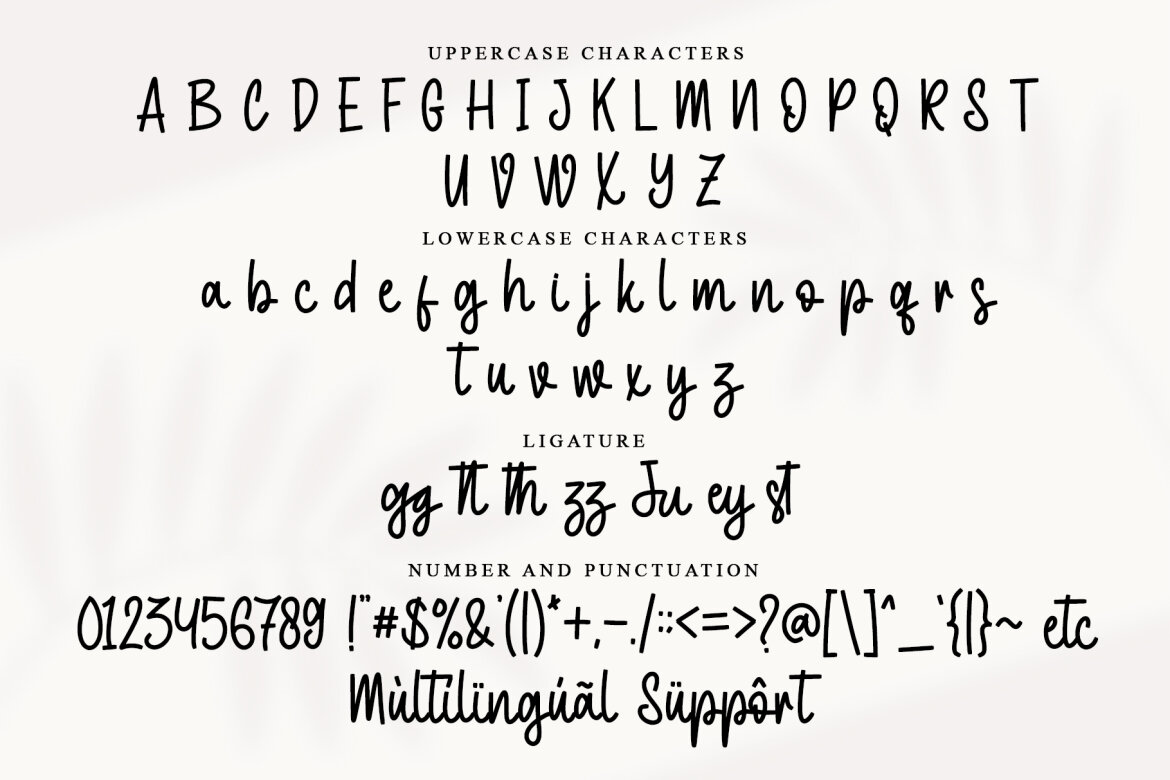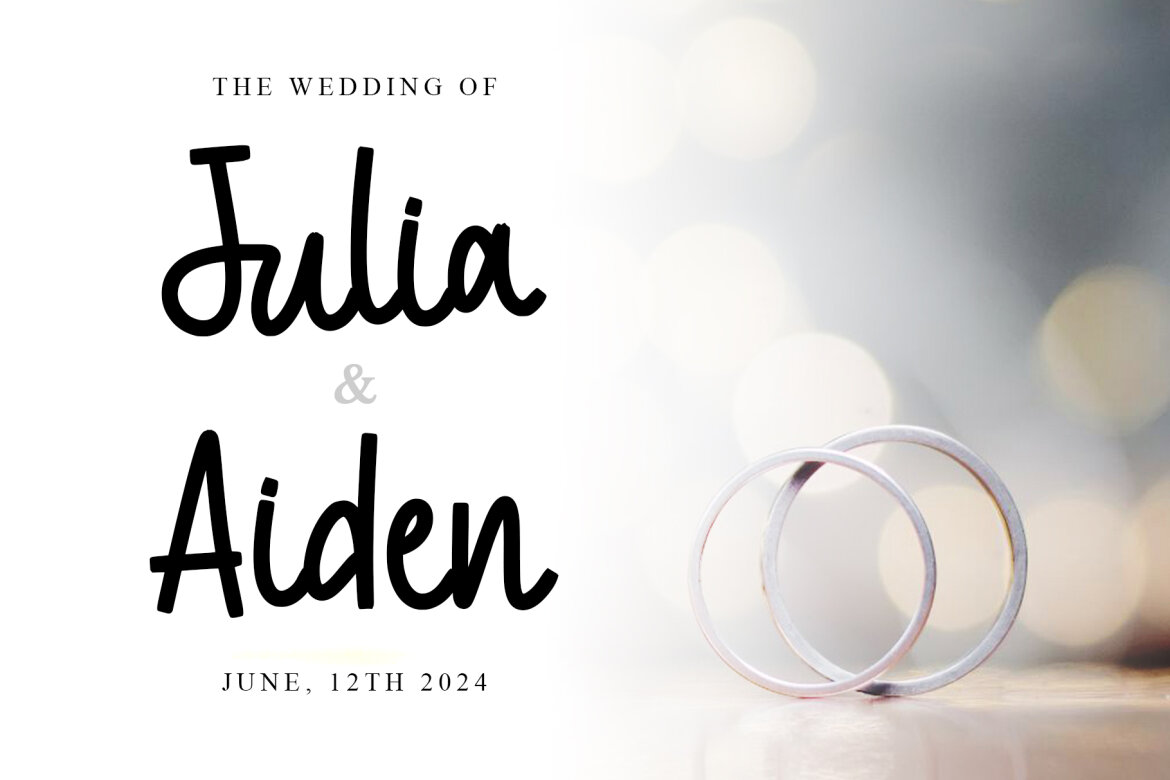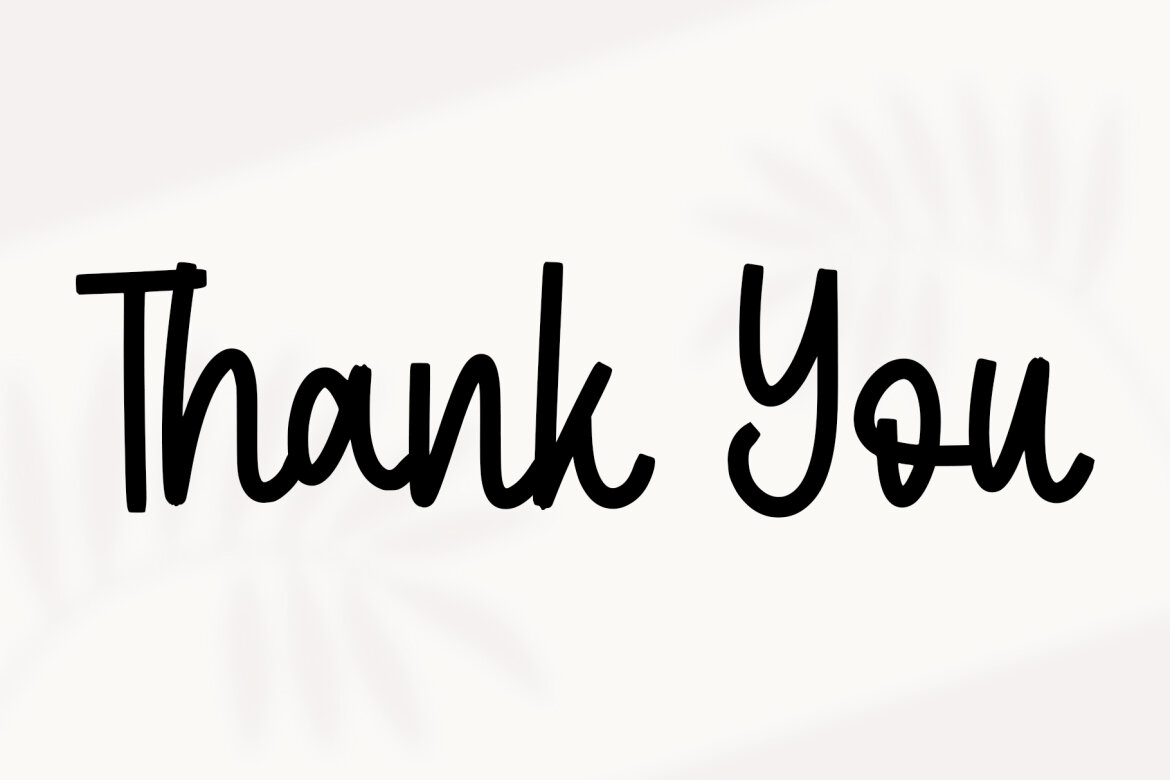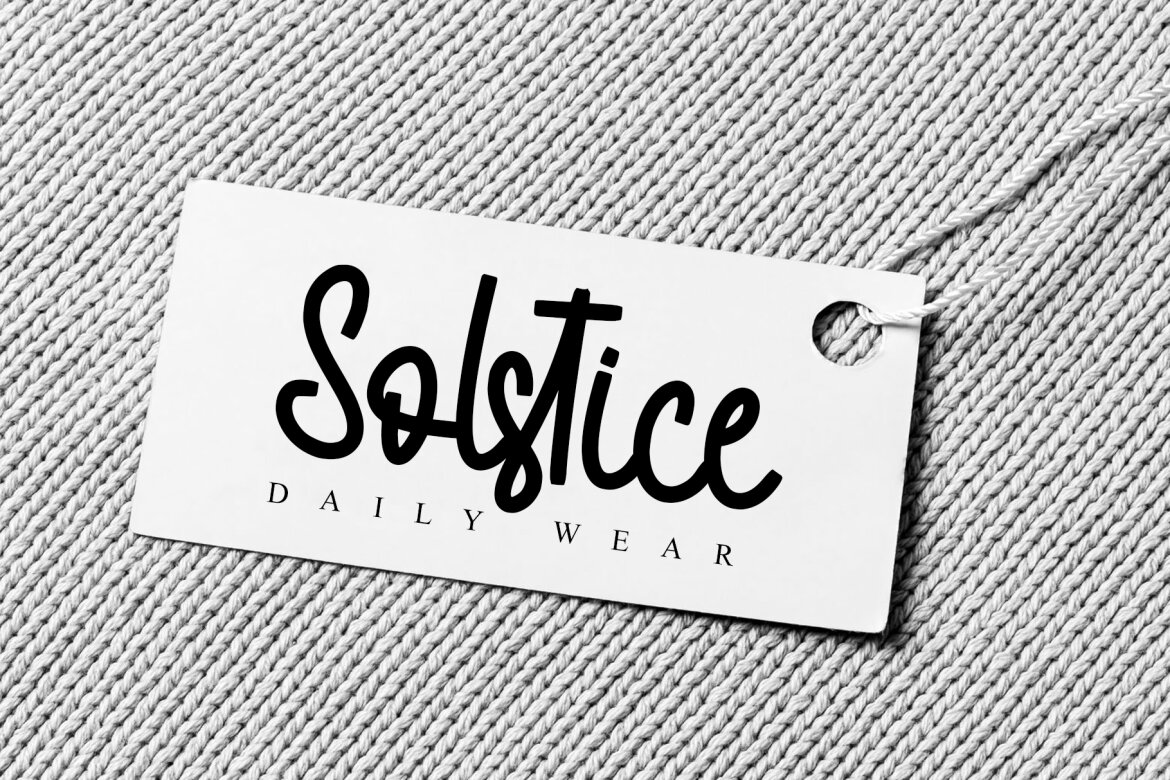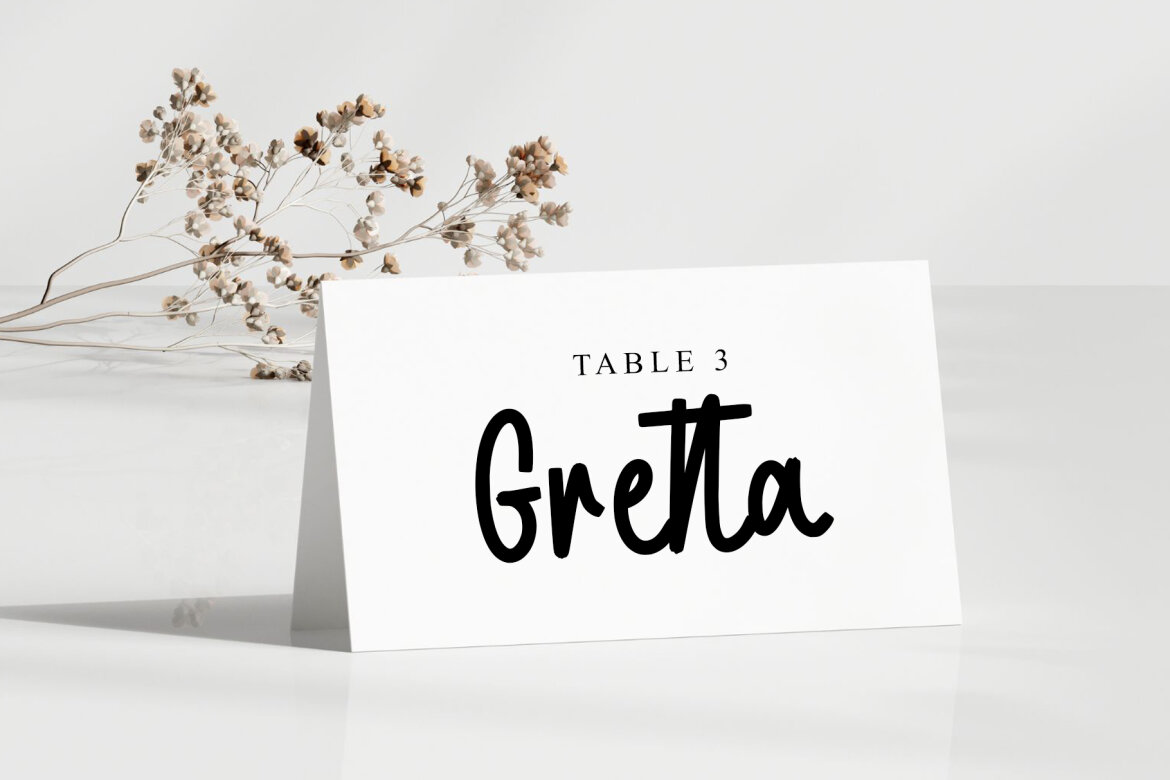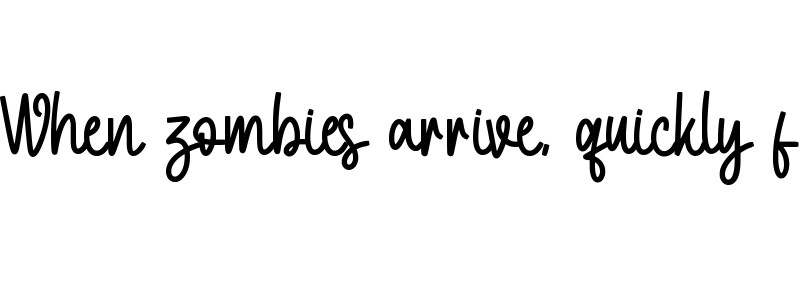
Just Okey - FREE Handwritten Font
Just Okey is a stylish and fresh handwritten typeface that exudes elegance and charm. With its flowing strokes and contemporary vibe, it adds a touch of sophistication to any design project. Perfect for invitations, branding, logos, and editorial designs seeking a modern yet personal feel.
• support multilingual; ä ö ü ä ö ü ß ¿ ¡